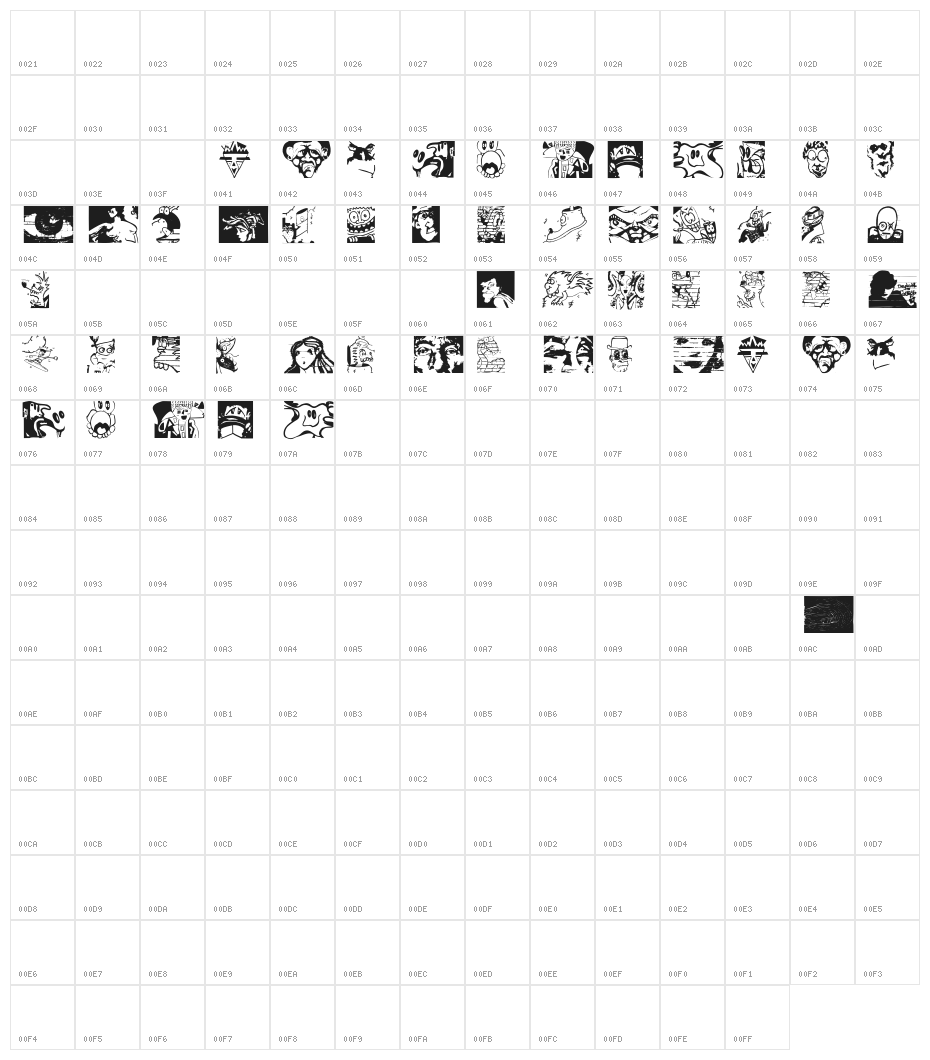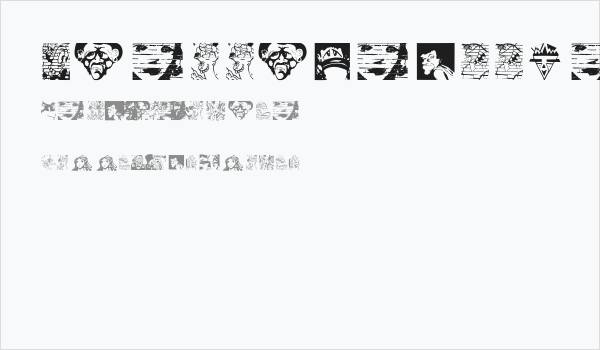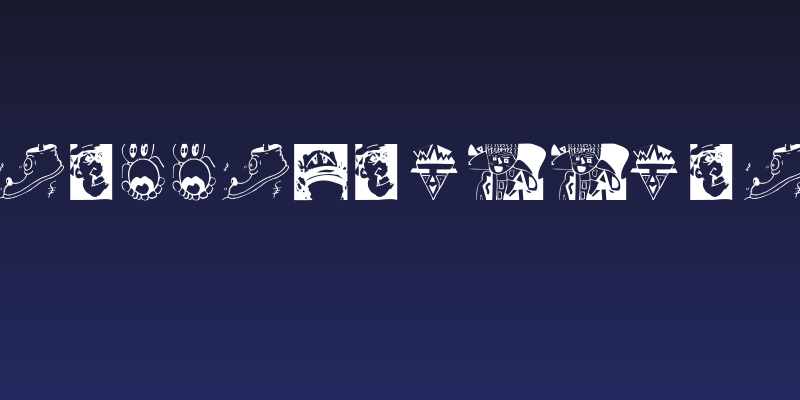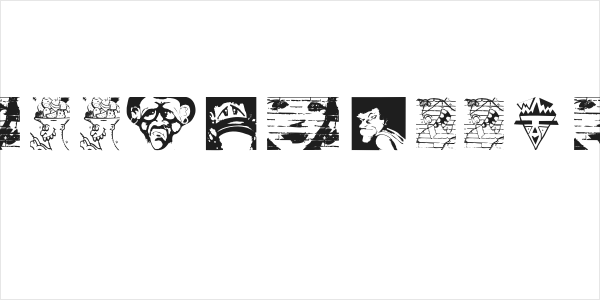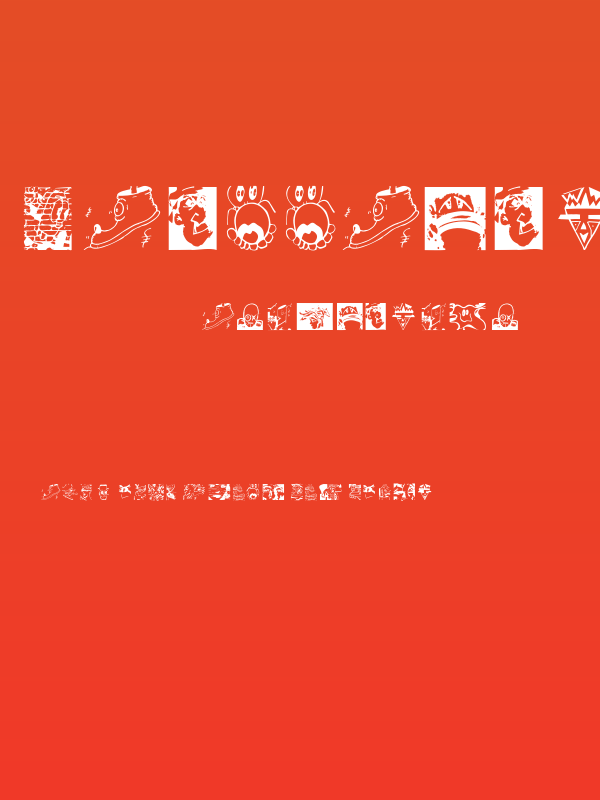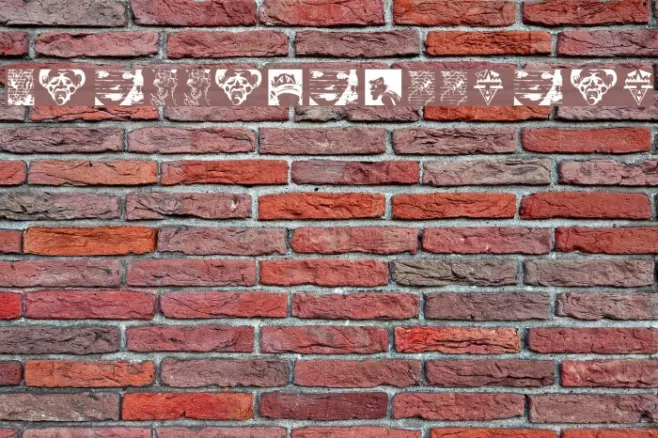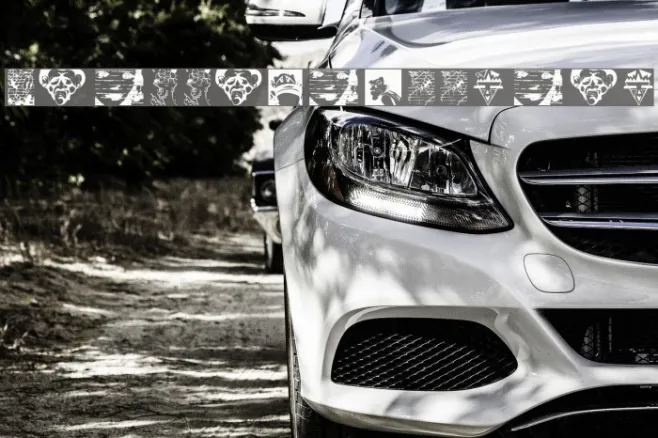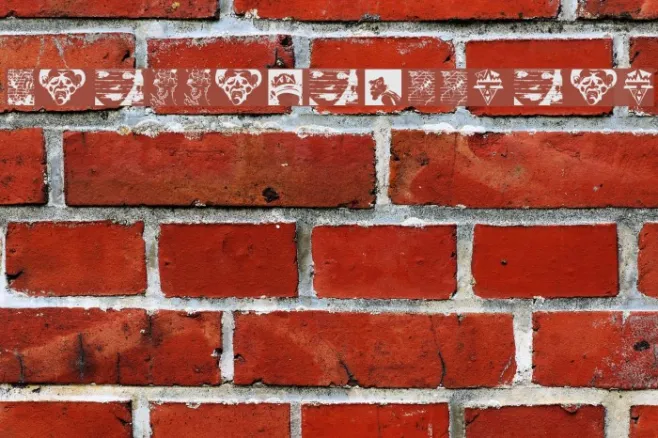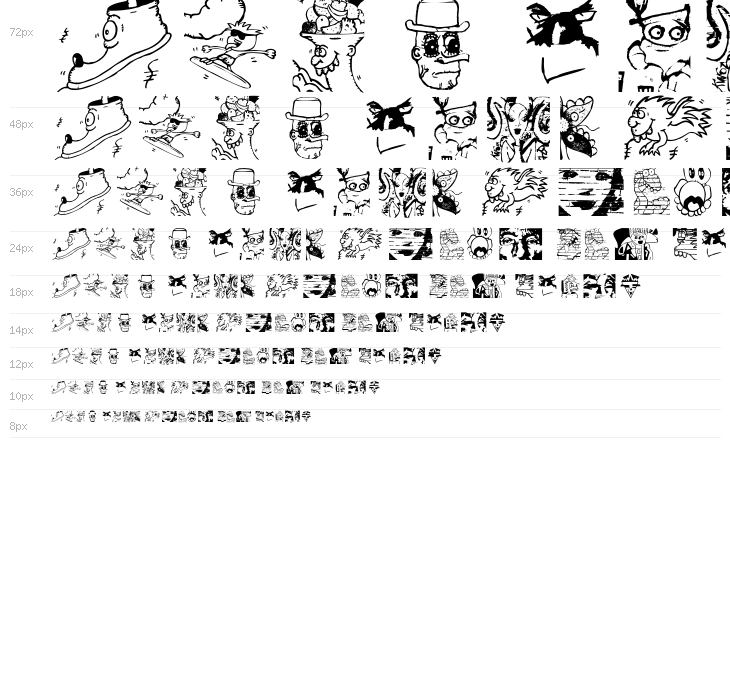
StreetGraffArts Font
StreetGraffArts Description
A highly decorative and illustrative font composed of graffiti-inspired street art characters and motifs, each glyph featuring unique, detailed artwork rather than traditional letterforms. The style is bold, expressive, and visually complex, with high contrast between black and white elements, evoking the feel of urban murals and street culture.
| Overall Style | Decorative, Urban, Graffiti, Artistic |
| Use Case | Headlines, Posters, Logos, Artistic projects |
| Proposed Projects | Urban-themed posters, album covers, event flyers, streetwear branding, youth marketing materials, art exhibitions. |